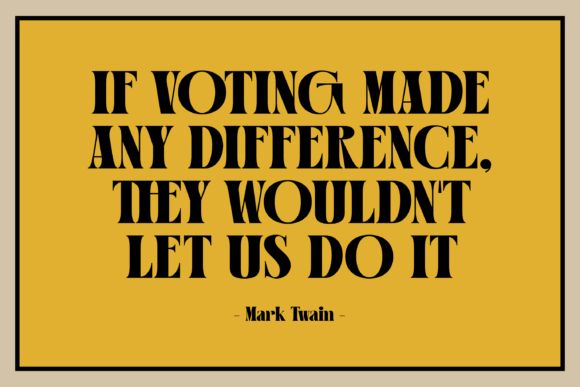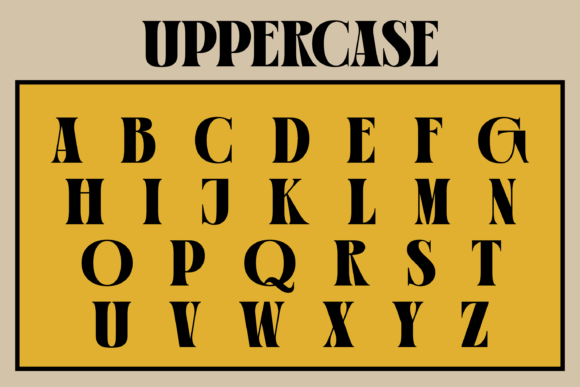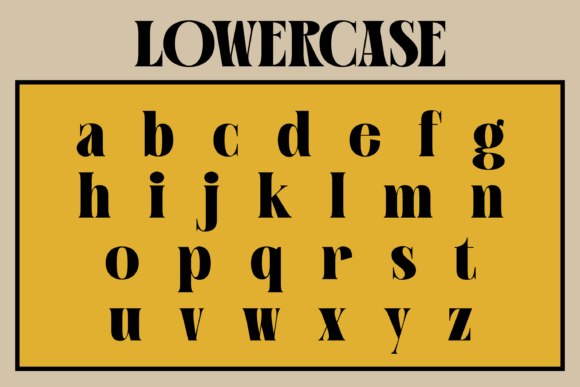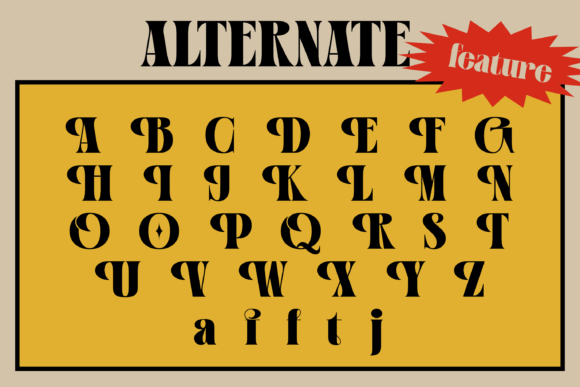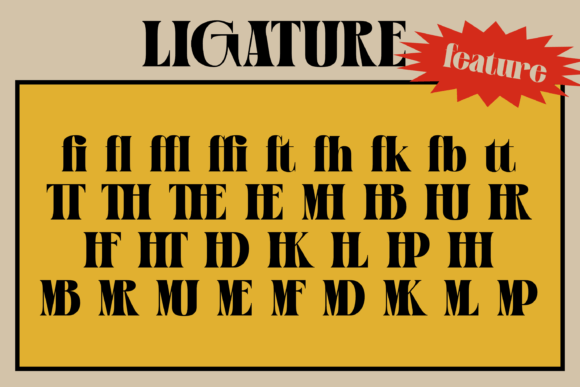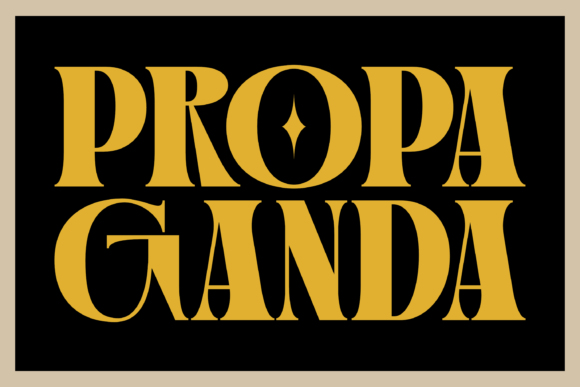
Introduction to Monarchy Font
Have you ever been browsing through old books, antique stores, or vintage shops, and suddenly stumbled upon a beautiful, elegant font that transports you to a bygone era? For designers, that moment of discovery is like finding a treasure trove of inspiration. And if you’re lucky, you might just stumble upon the Monarchy Font, a vintage typeface that exudes classic charm and sophistication.
The Monarchy Font is a free download that’s perfect for designers who want to infuse their creative projects with a touch of nostalgia and high-quality elegance. Whether you’re working on a book cover, poster, or merchandise design, this font is an excellent design resource that’s sure to elevate your work. With its condensed form and classical proportions, the Monarchy Font is an ideal choice for designers who want to add a touch of sophistication to their designs.
With its transparent background and high-quality design, the Monarchy Font is a valuable asset for any designer looking to create unique and eye-catching designs. So, why not give it a try and see how this beautiful font can bring your creative project to life?
Key Features of Monarchy Font
- High-quality font with a sophisticated and elegant design, perfect for creative projects that require a touch of luxury.
- Designed to be highly versatile, making it suitable for a wide range of design applications, from branding and advertising to editorial and publishing.
- Unique characteristics include intricate details and ornate flourishes, adding an extra layer of sophistication to any design project.
Honest Review: Monarchy Font
As a designer, I’m always on the lookout for high-quality design resources to elevate my creative projects. The Monarchy Font caught my eye with its sleek, modern aesthetic and free download option, making it an attractive choice for designers of all levels.
- ✨ Elegant, sophisticated design that’s perfect for luxury or high-end projects.
- ⚠️ Limited font sizes available, which may require additional design work to achieve the desired scale.
- ⚠️ Some users may find the font’s modern aesthetic too trendy or overused, potentially limiting its versatility.
Overall, I’d recommend the Monarchy Font for designers seeking a high-end, sophisticated look for their creative projects. While it may have some limitations, its high quality and free download option make it a valuable design resource.
Monarchy Font is perfect for:
Business cards and marketing materials
Brand identity and logo design
Any creative project that requires a touch of sophistication and elegance